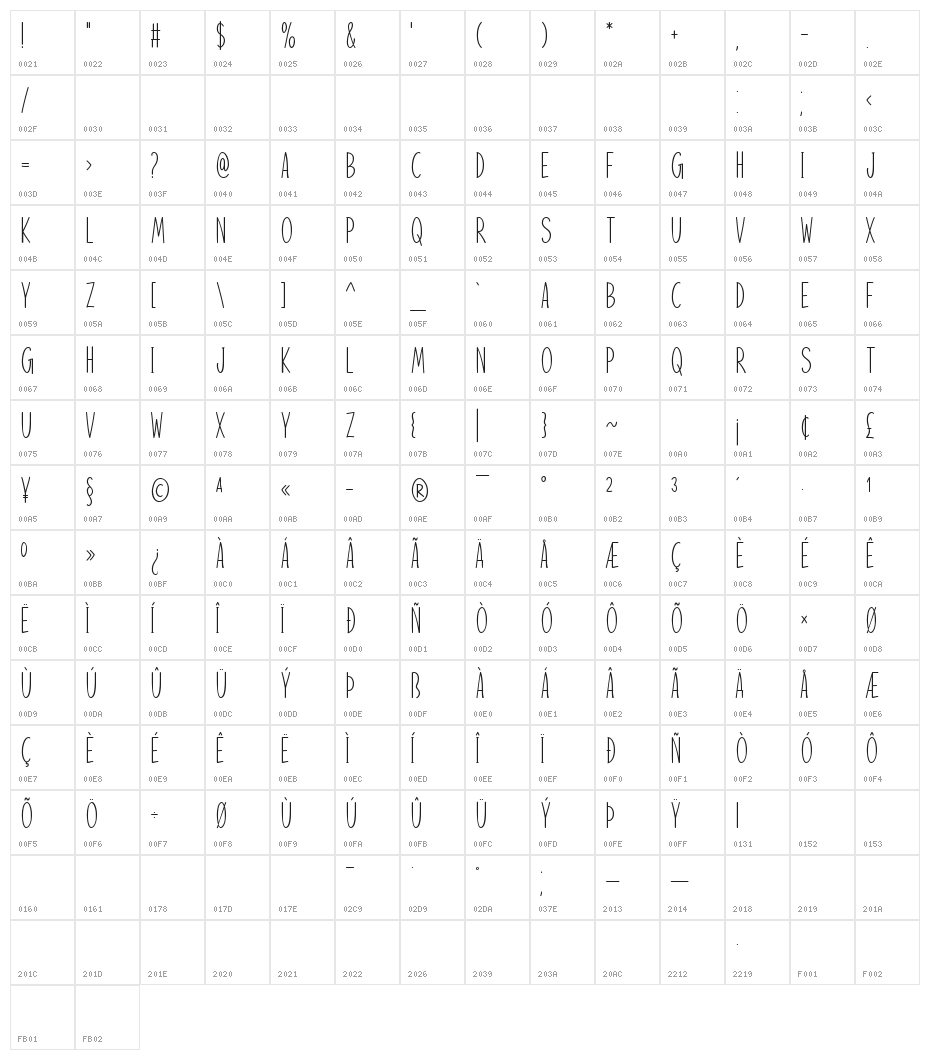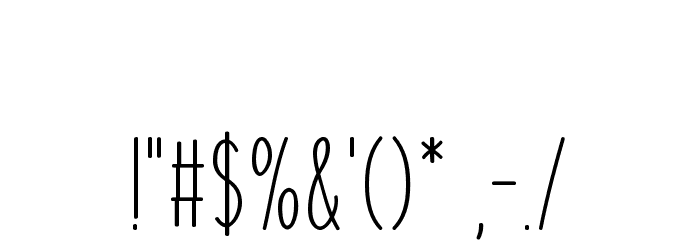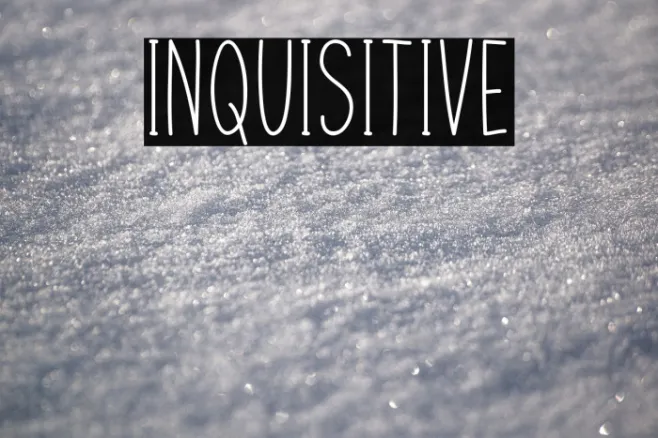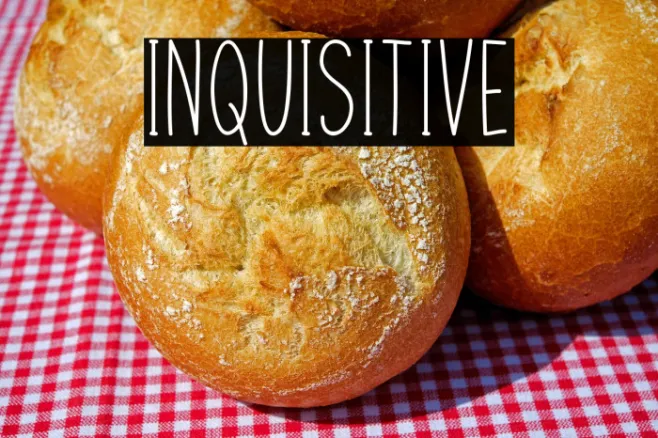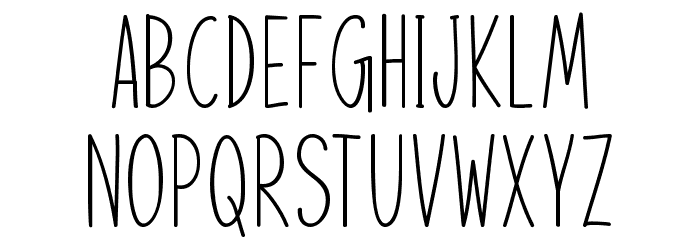
Inquisitive Font
Inquisitive Description
This font features tall, narrow letters with a playful and quirky style. The characters are slightly irregular, giving them a hand-drawn appearance that adds a touch of whimsy. The strokes are consistent in thickness, providing a clean and modern look. The uppercase and lowercase letters maintain a uniform height, contributing to a cohesive and balanced design. The special characters are designed to match the overall aesthetic, ensuring a harmonious appearance across all text elements. This font is well-suited for projects that require a friendly and approachable feel.
| Proposed Projects | Ideal for children's books, greeting cards, playful branding, and creative posters. |